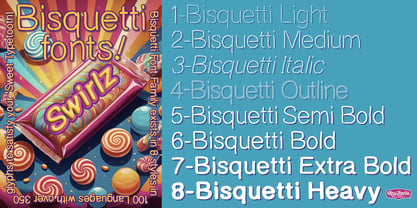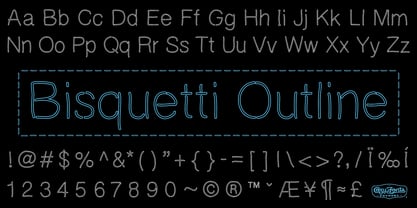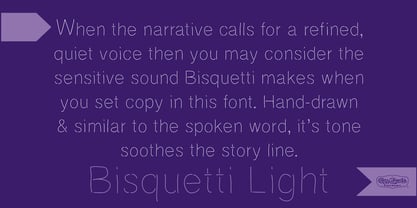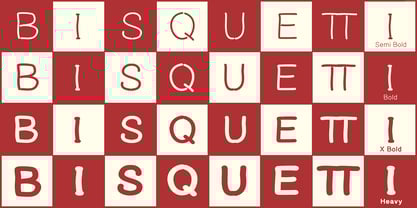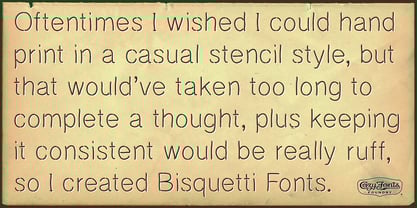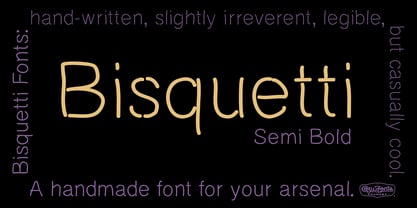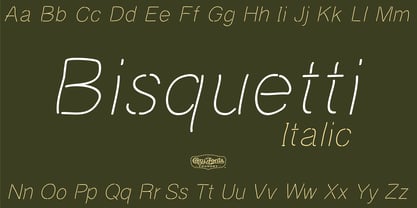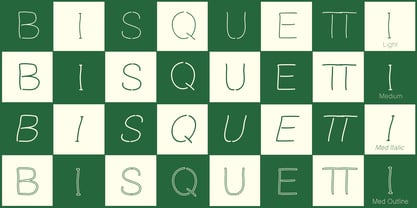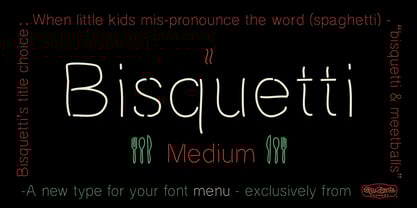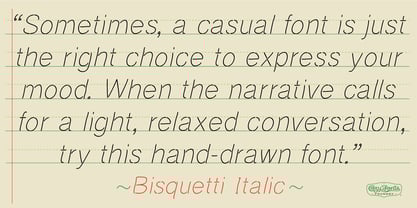
Bisquetti
The Bisquetti Font Family was designed by Tom Nikosey and published by CozyFonts. Bisquetti contains 8 styles and family package options. More about this family
Bisquetti Font Family is a handwritten, print-style font family that is eight-weight, ranging from light to heavy. Bisquetti fonts change personality with each style. The Light version is a refined yet personal hand-drawn style of writing where each glyph appears to be drawn with a pencil. As each style gains weight, it takes on a new personality. By the time the Heavy Weight version appears, one gets a feel of animated, cartoon-style flavor. The italic and outline members of this font family bring, yet again, other characteristics of personality traits yet all relate to the original, basic Regular style.
Bisquetti was drawn, and built by Tom Nikosey for his Cozyfonts Foundry, a Los Angeles based design company established in 2012. Bisquetti is their 29th font family.
Bisquetti